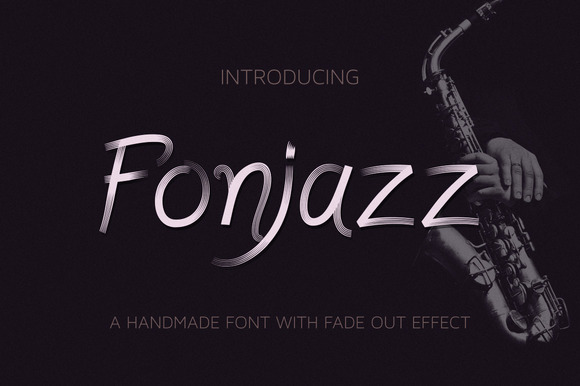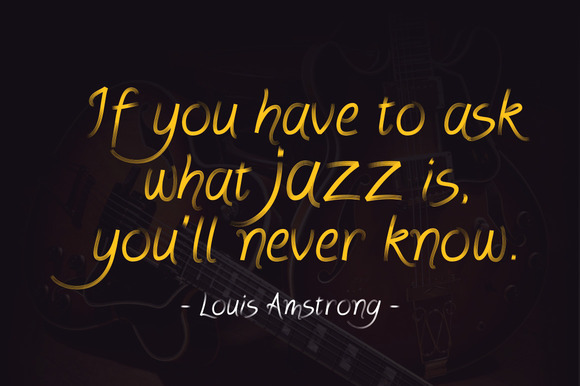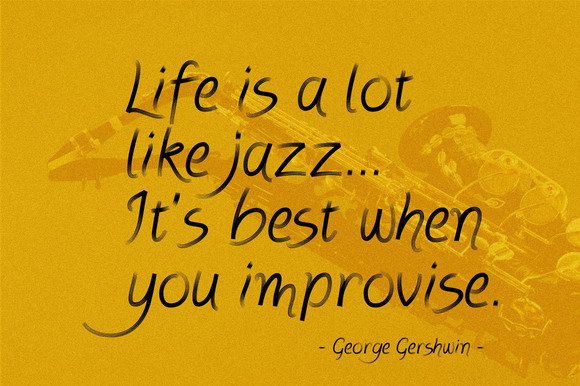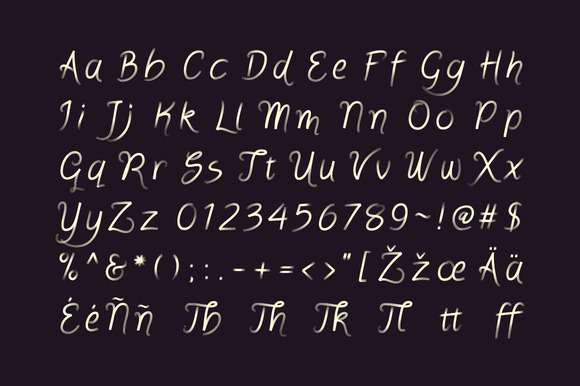
Fonjazz Typeface
Fonjazz is a handmade font with fade out effect. Irregular baseline make this font feels more natural and personal. Thin lines at the end of the font intentionally given for visual effect where the font looks faded out.
Fonjazz comes with lowercase and uppercase letters, punctuation, symbols, and some OpenType features that allow you to create great designs. OTF and TTF are available.